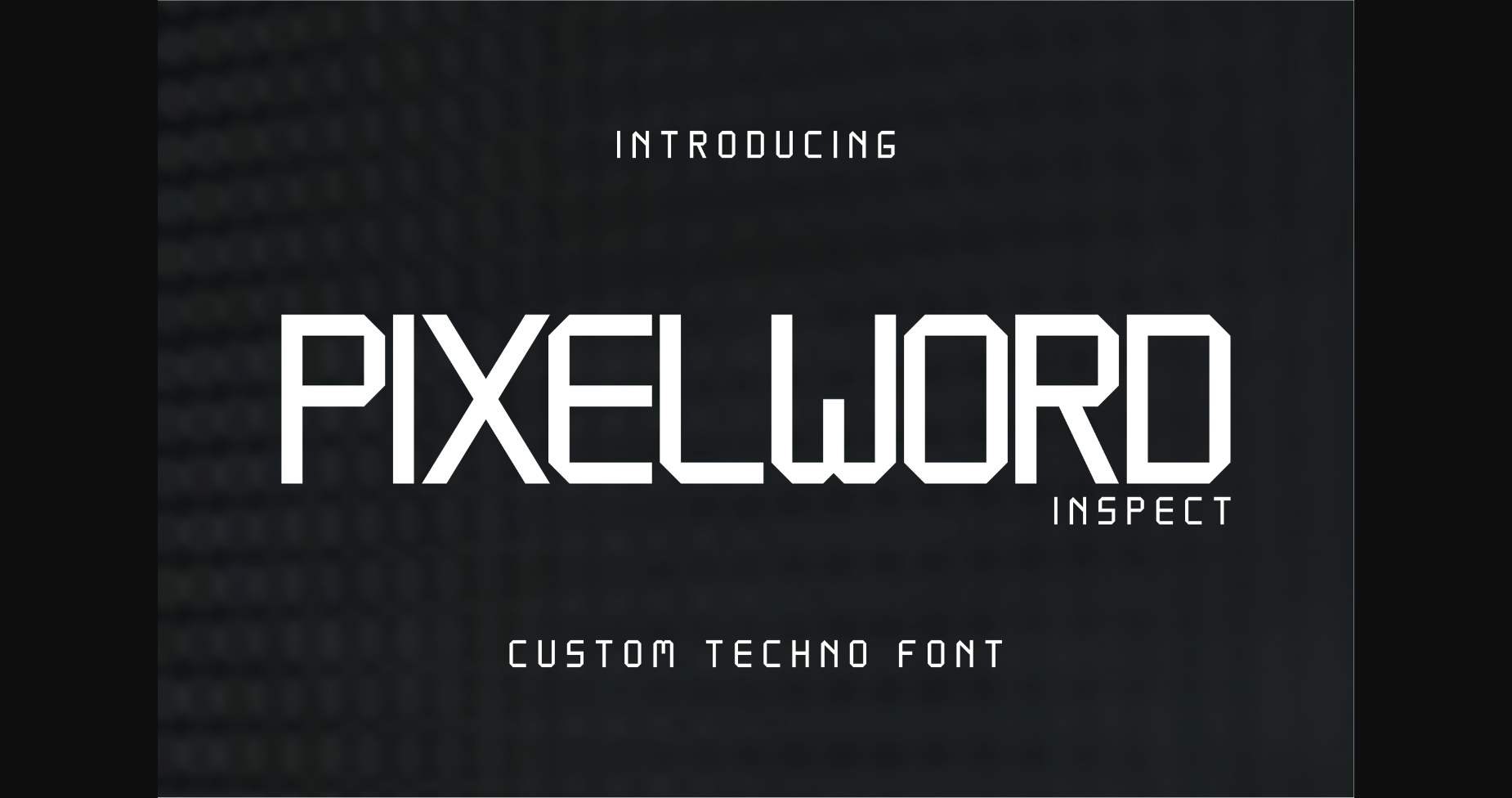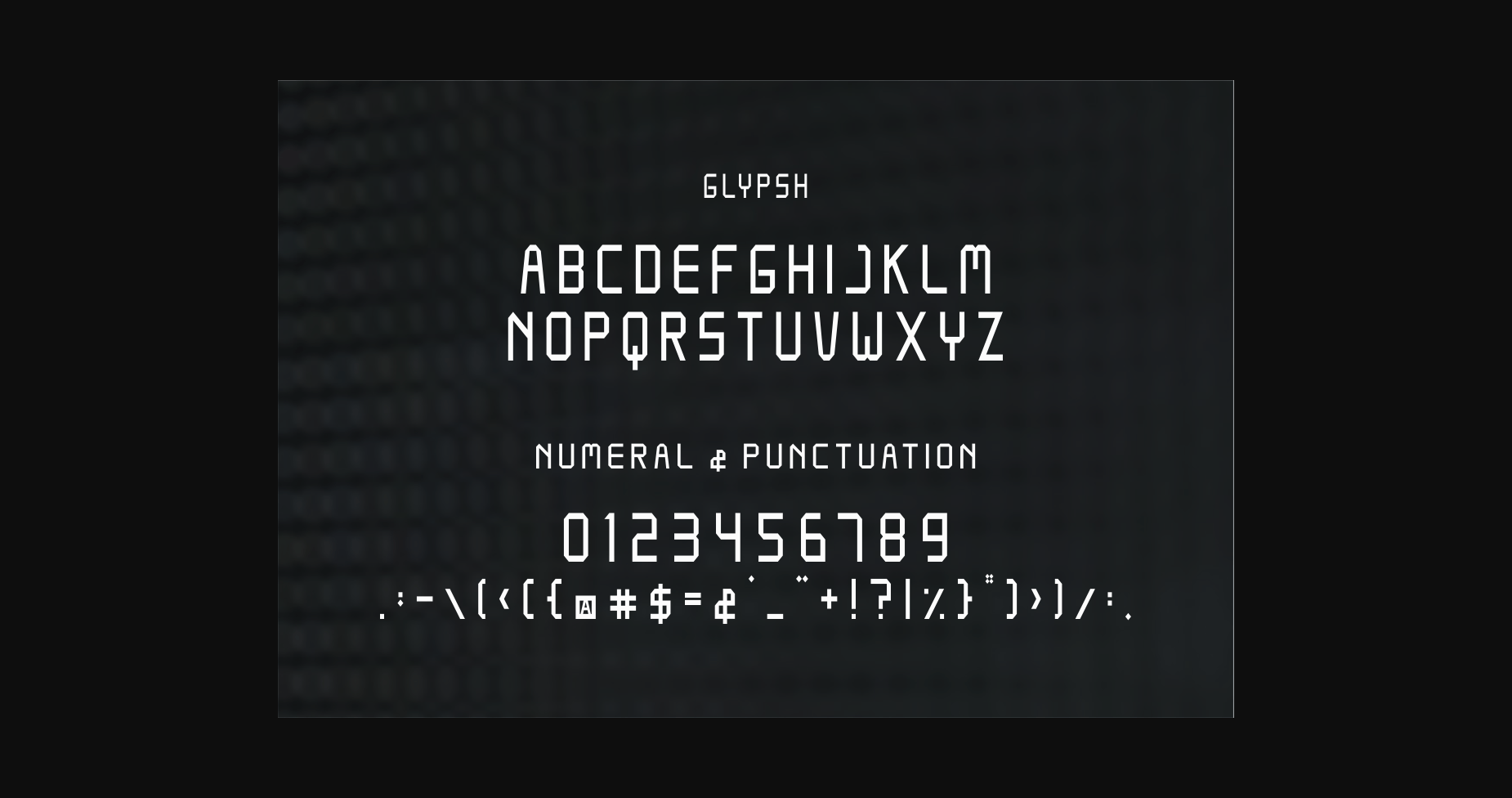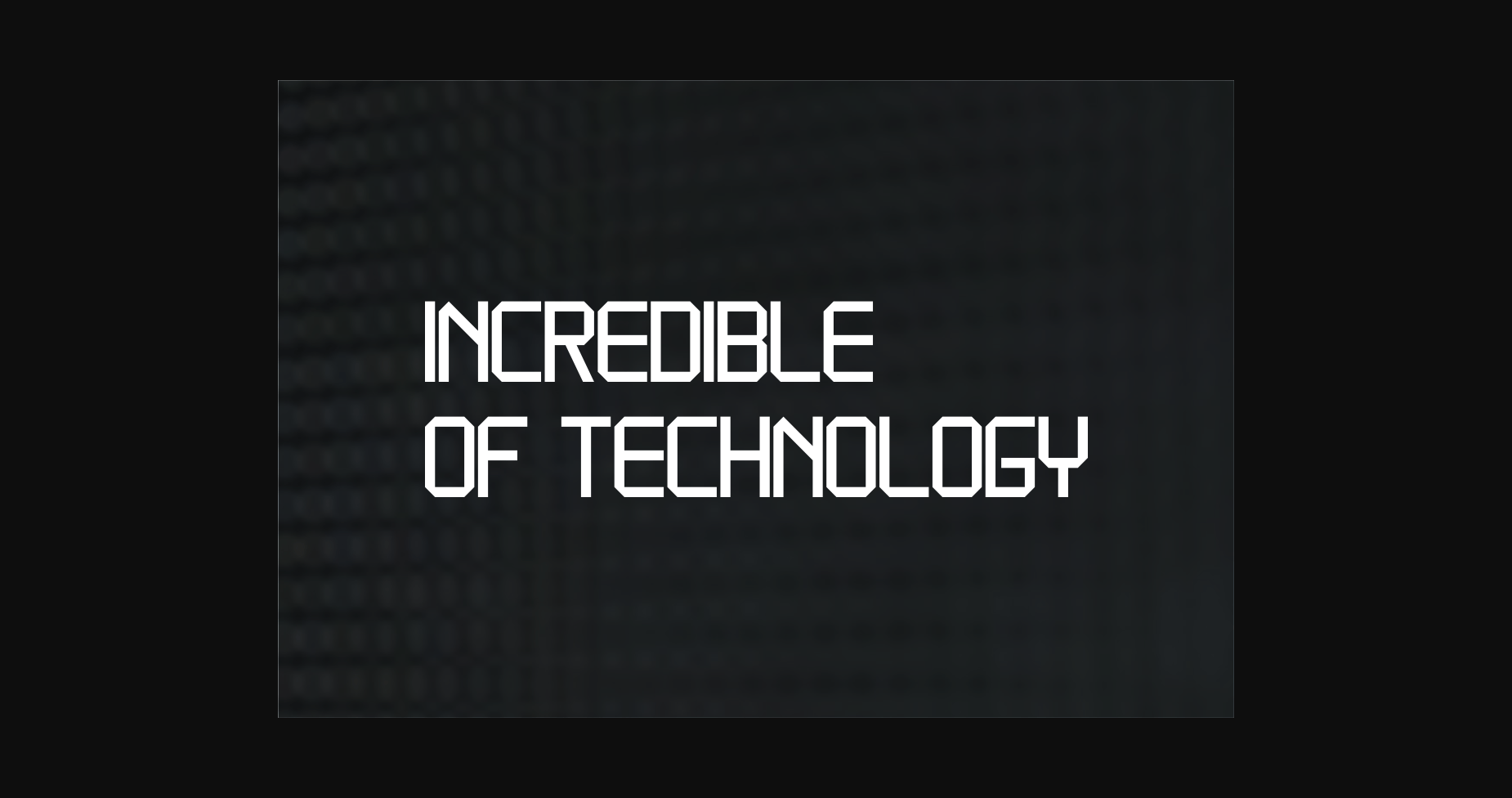
Pixelword Inspect Font
About Pixelword Inspect Font
Pixelword Inspect is a classy, modern, and unique sans serif font. It’s a great font for fashion, apparel projects, signatures, album covers, logos, branding, magazines, social media, & advertisements, but also works great for other projects.